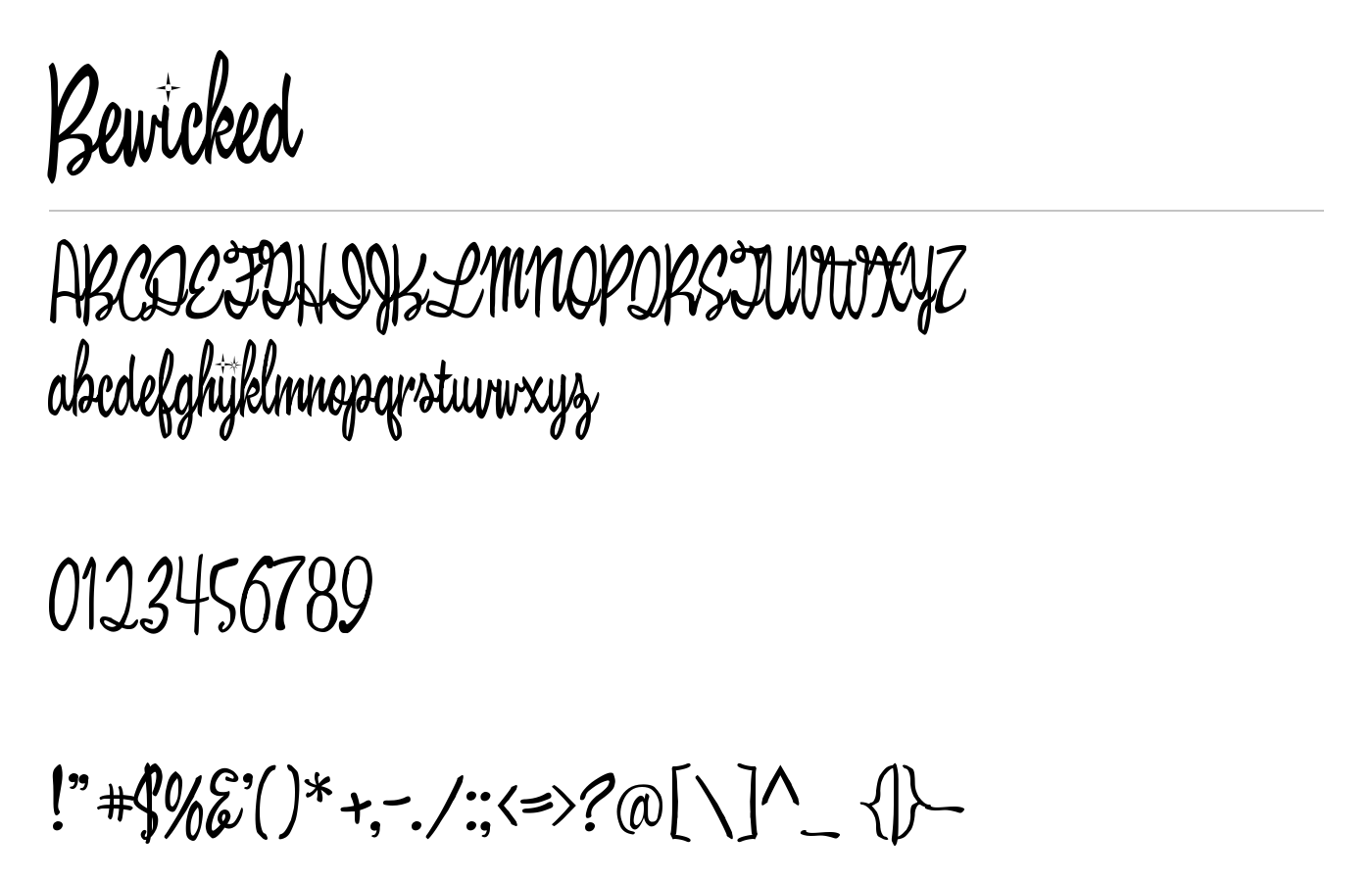
Bewicked is a lively, narrow script font with a handwritten feel, characterized by its tall, slender letterforms and playful, uneven strokes. Its casual yet elegant style makes it ideal for creative branding, invitations, and headlines where a personal, warm touch is desired. This font works best in designs that seek a modern, friendly vibe with a hint of sophistication.
Bewicked Font
About Bewicked Font
| Font family | Bewicked Font |